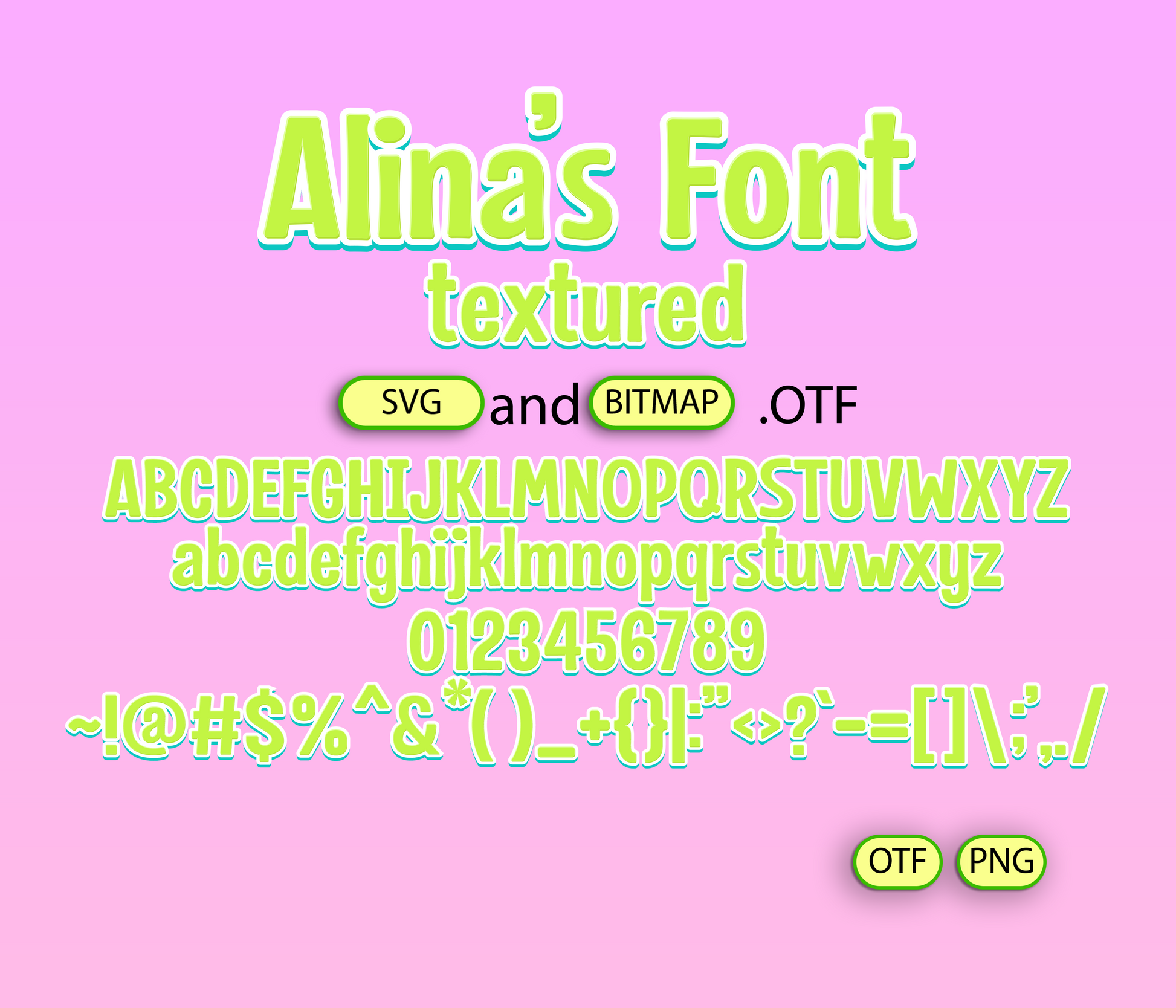
Plush Green for Toy Packaging Font Textured
Plush Green for Toy Packaging and Nursery Decor Font Textured
Step into the adorable world of nature-inspired companions with our Plush Green Typography font, capturing the essence of squishy green plush toys and ultra-soft fluffy collectibles. Perfect for children's birthday parties, baby boutiques, toy designers, and creative professionals, this font brings the cuddly, cheerful spirit of marshmallow-soft green characters to your projects. Create heartwarming invitations, merchandise, or digital content with the gentle energy of lovable plushie companions.
Soft Fluffy Color Font for Children's Design & Baby Products
Our Plush Green Typography font features rounded, pillowy letterforms and soft bubble-like curves reflecting the world of ultra-plush green toys.
- Event Promotions: Create adorable invitations, posters, and banners for birthday parties, baby showers, and themed gatherings that capture the spirit of fluffy plush joy
- Merchandise Design: Perfect for baby clothing tags, toy packaging, nursery decor, and accessories that showcase the soft aesthetic of cuddly green companions
- Digital Media: Enhance websites, blogs, and social media with cozy headers and graphics that express the comfort of plushie friendship
- Children's Content: Add authentic charm to storybooks, educational materials, and creative designs inspired by kawaii plush adventures
- Personal Projects: Bring squeezable cuteness to scrapbooking, DIY crafts, and home decor inspired by the world of ultra-soft green plushies
Our font pays tribute to the iconic world of soft plush toys and kawaii design, empowering your projects with its gentle and huggable spirit. Whether crafting party materials, designing baby products, or adding a cuddly touch to personal projects, this font communicates the heartwarming essence of childhood comfort. Ready to inject fluffy green charm into your creations? This font is your key to adorable, impactful design.